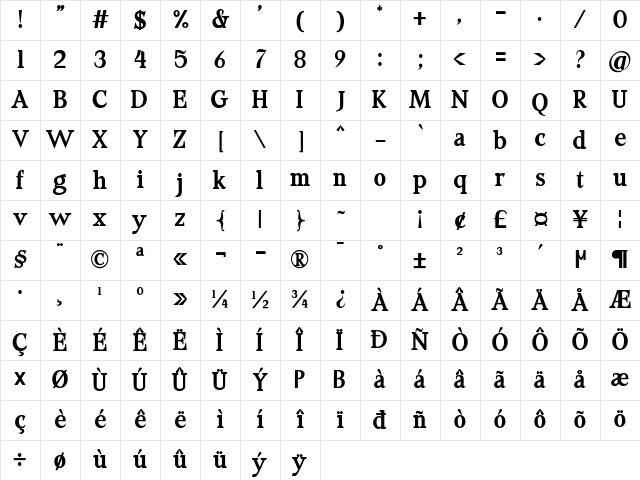
Mouvere' Bold Free Font
Mouvere' Bold
Foundry: Muhamad Fikry Nuralif
Designer: Muhamad Fikry Nuralif
Design Context for Mouvere'
Mouvere' is a composed and adaptable typeface that performs quietly and consistently across a wide range of design contexts. Its bold stroke weight gives it real presence on the page.